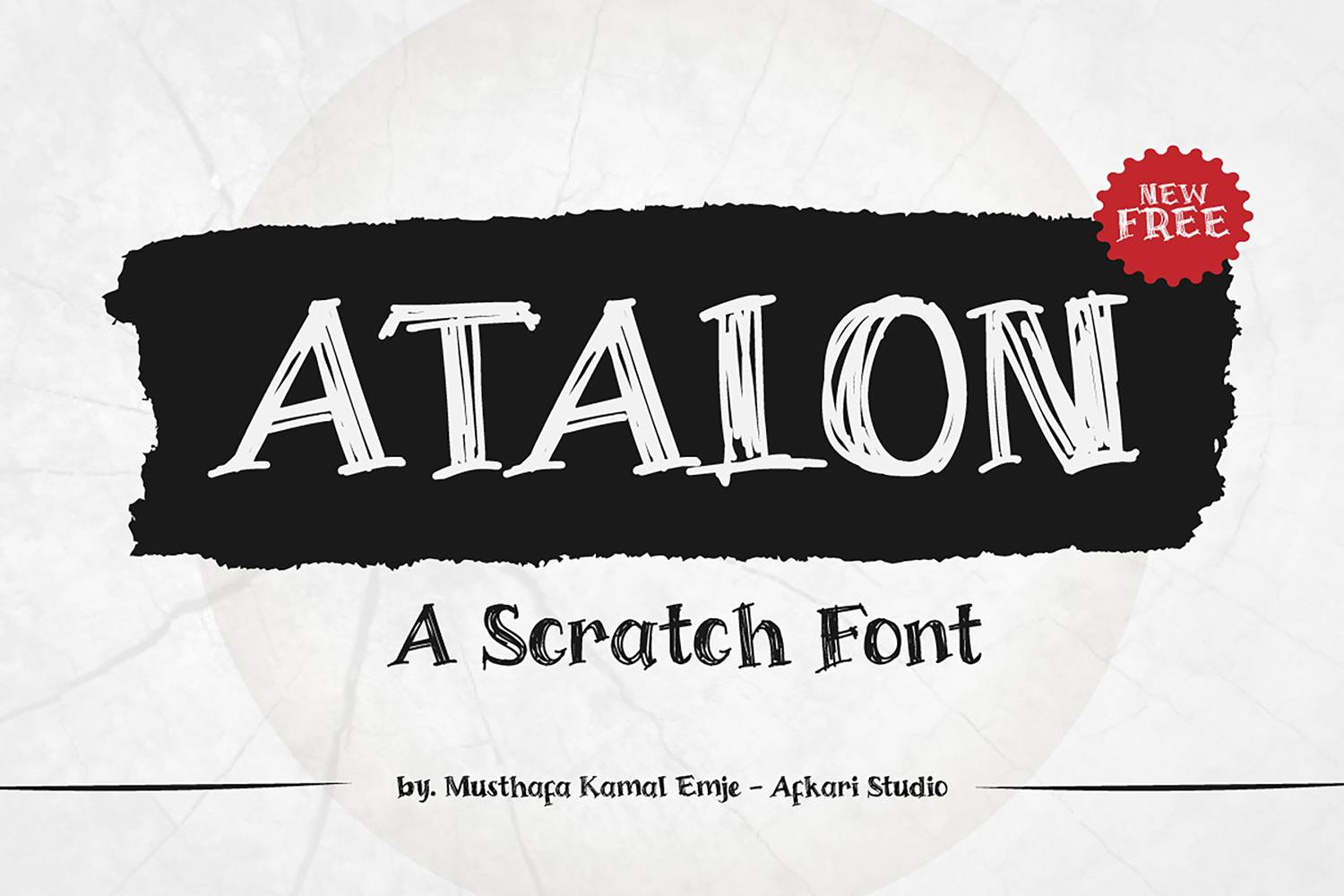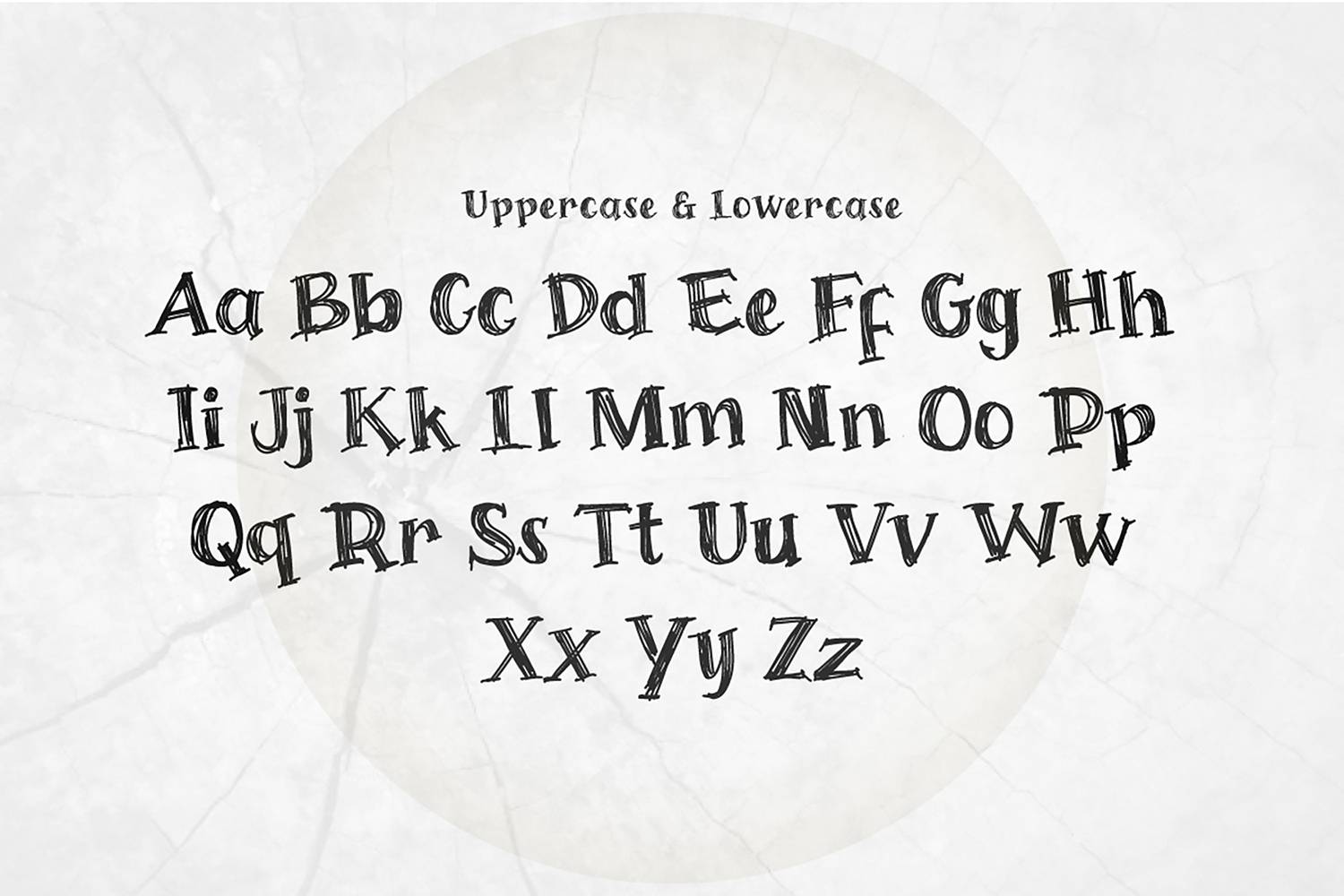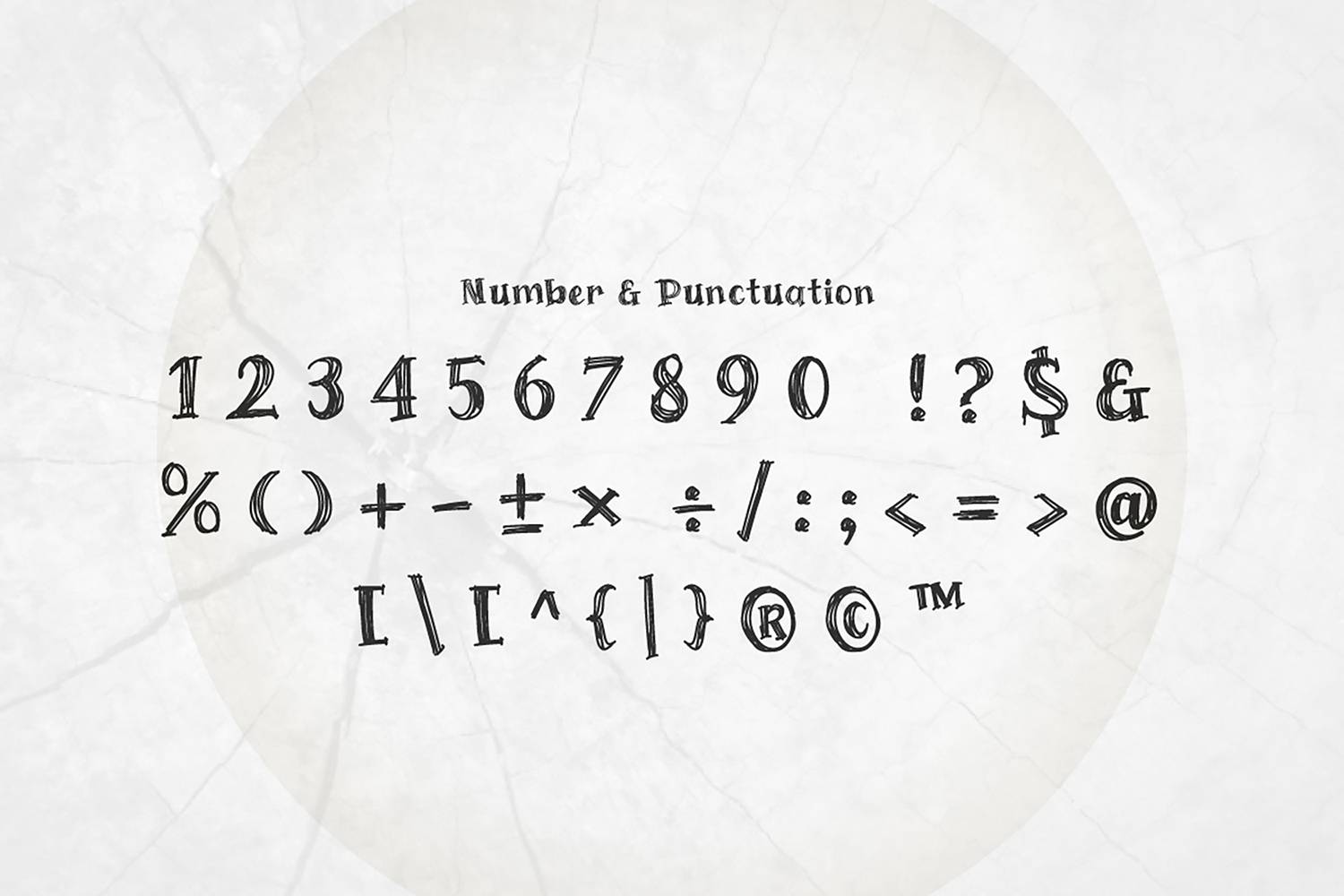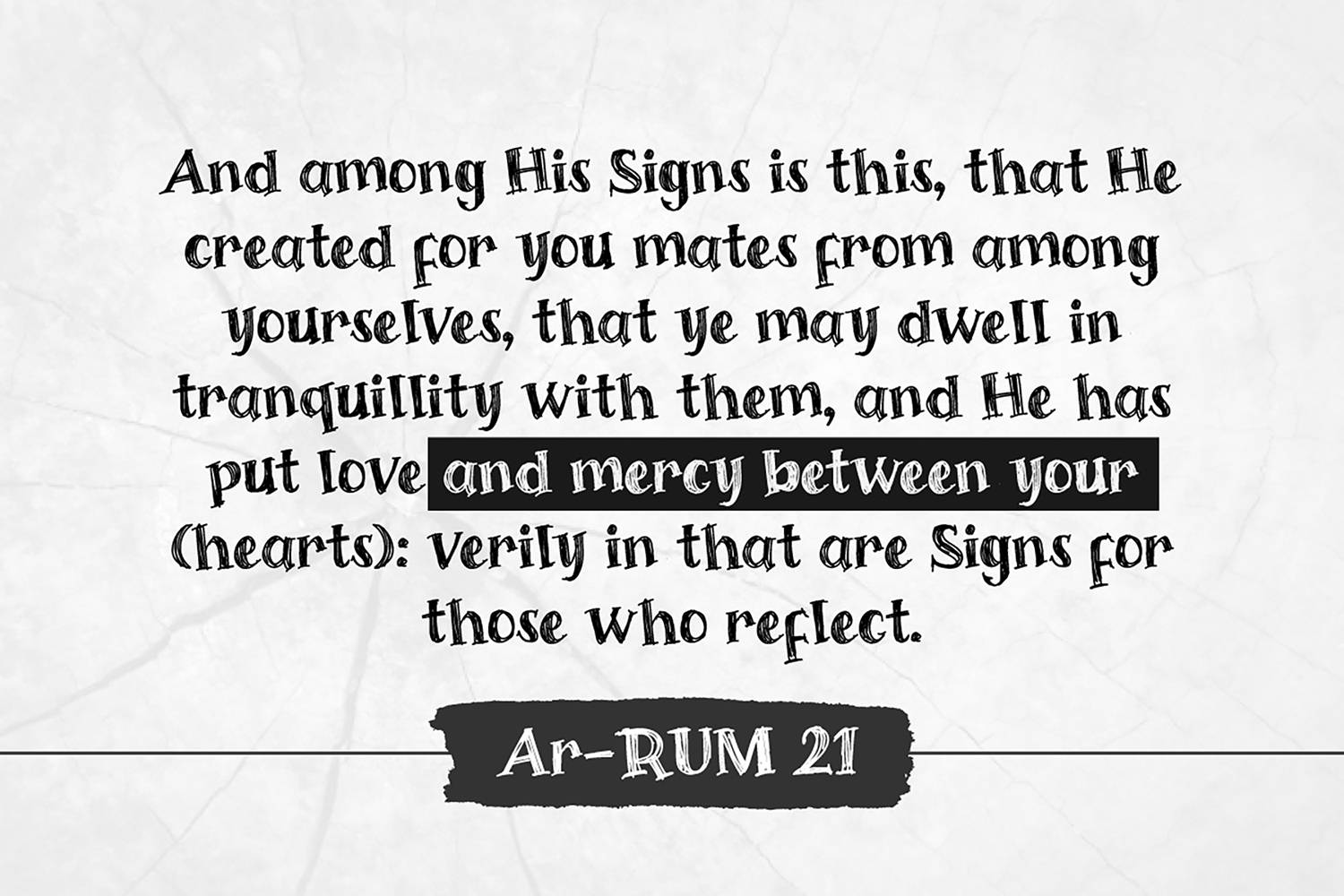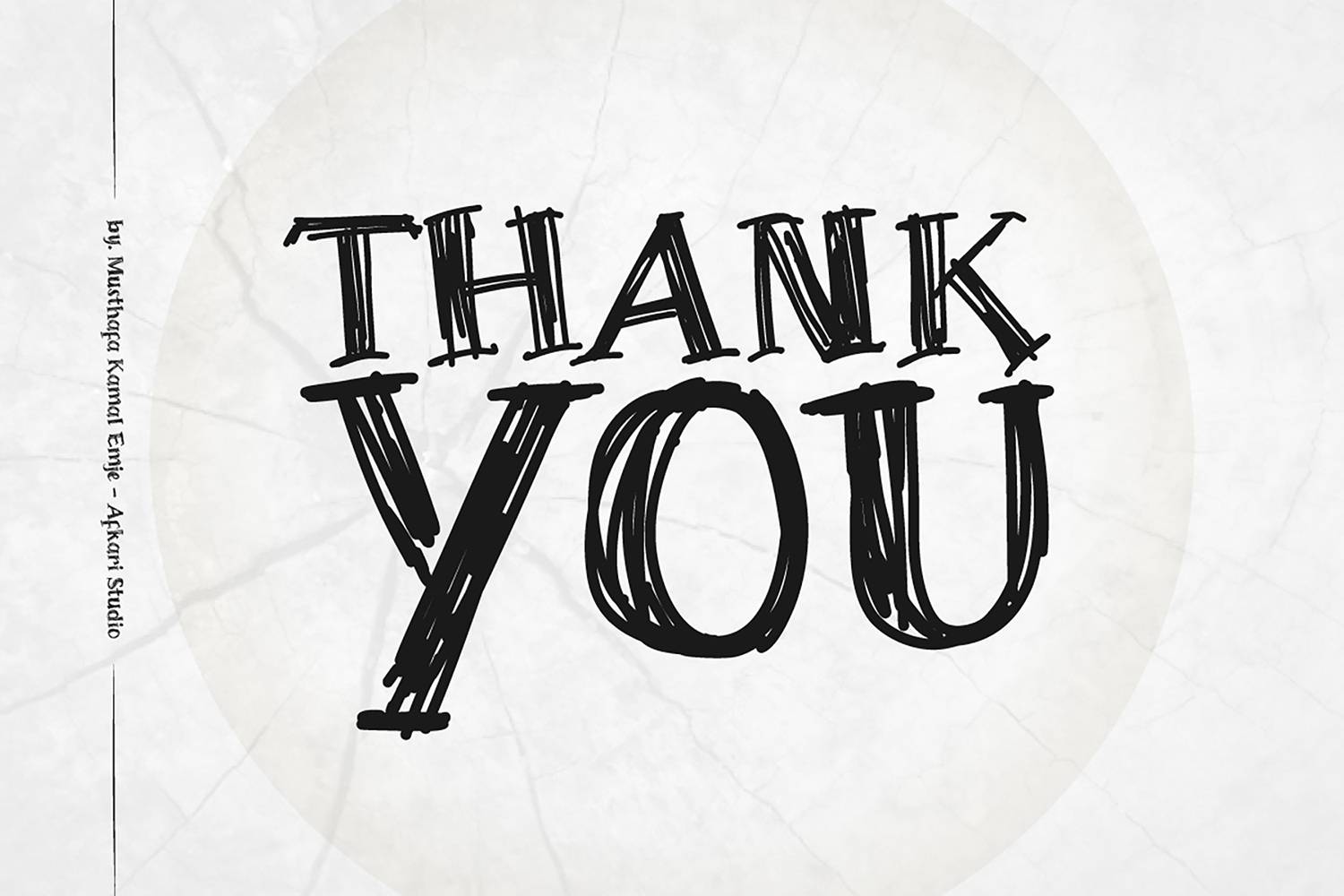
Atalon is a playful serif font with a hand-drawn, sketch-like texture that gives it a lively and creative feel. Its irregular strokes and unique letter shapes make it perfect for informal, artistic, and fun projects, lending character and charm to headlines, logos, and casual branding. This font shines where a quirky, handcrafted touch is needed to add personality and warmth.
Atalon Font
About Atalon Font
| Font family | Atalon Font |
| Designer | Musthafa Kamal Emje - Afkari Studio |